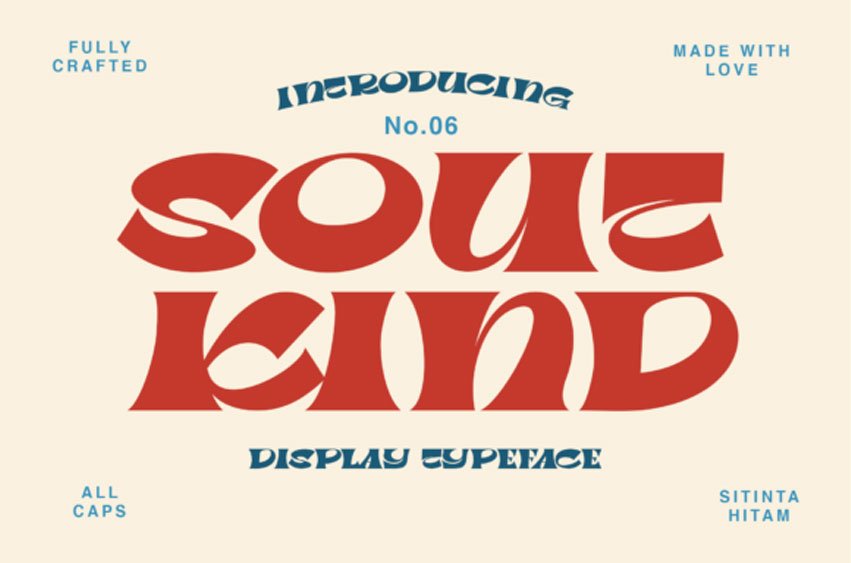
Soutkind Font is a display typeface with a heavy, bold style, inspired by pop culture in the 80s. Soutkind has a unique and fat form. This font is suitable for your design, such as packaging, poster, apparel, etc.
SOUTKIND also includes a set of some pop illustrations. Extras allow you to develop awesome designs with this font.